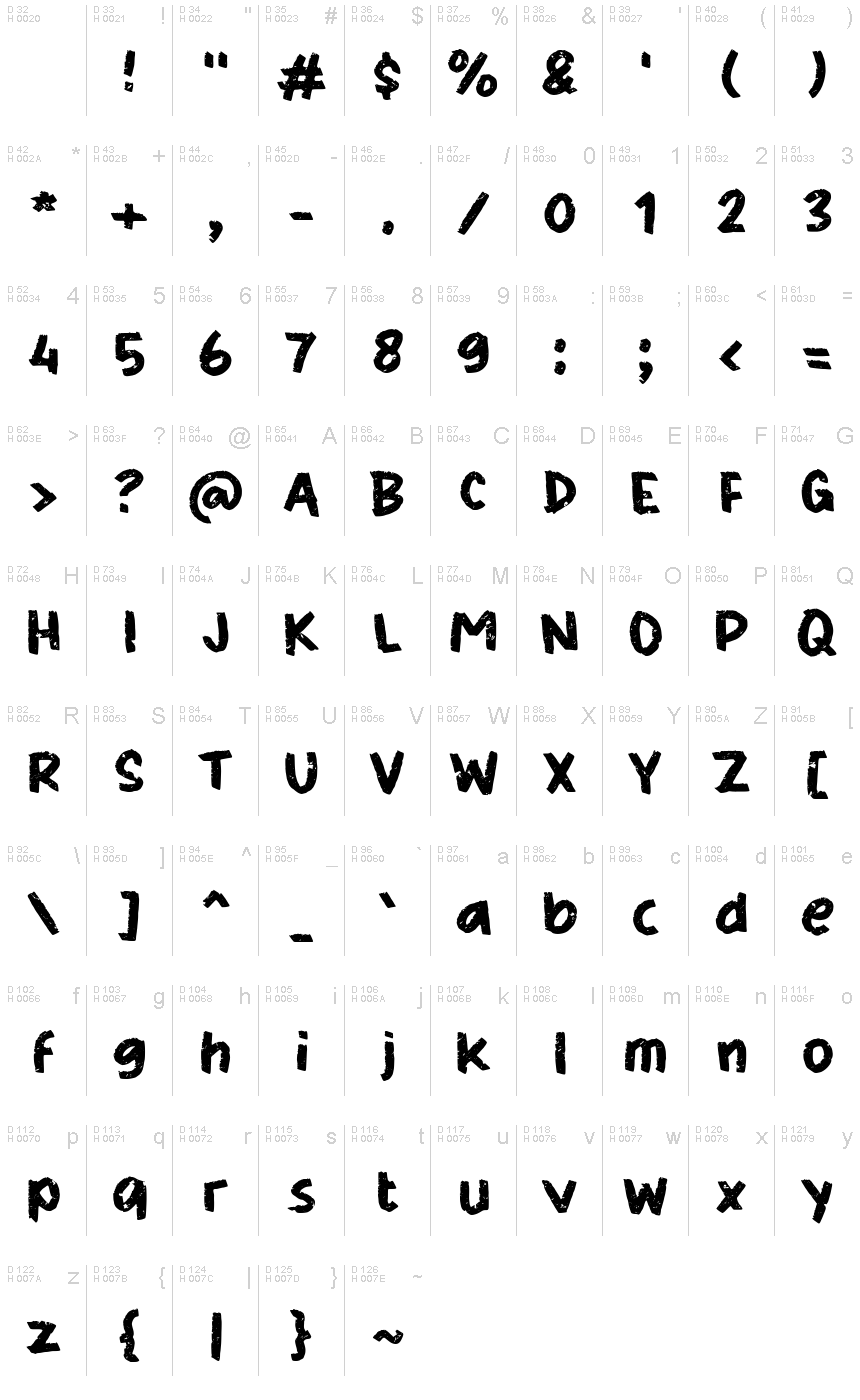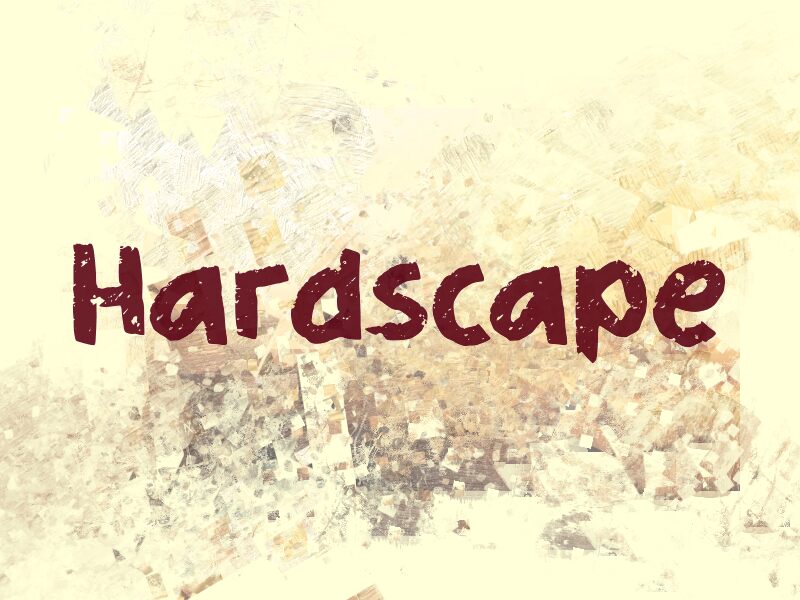
Hardscape
Hardscape font is a free font for instant download and use that was created by wep. The script-style chalk typeface endorses a casual mood in tones unprecedented as they come with a small touch of roughness. Its handwritten characters have uneven, high-contrast lines that showcase distressed textural characteristics such as rough/uneven edges and additional streaks and scratches.
Bring your writing closest to an actual manual writing effect with Hardscape whenever you use it in your design projects. Examples of art this bold typeface can serve include artist profiles, event posters for kids activities or family events, product packaging, short texts in posters and banners that aim to have strong calls to action…